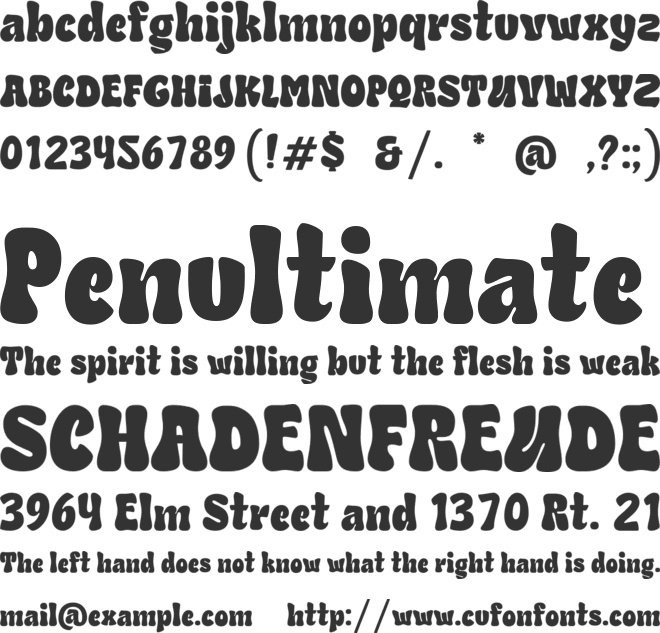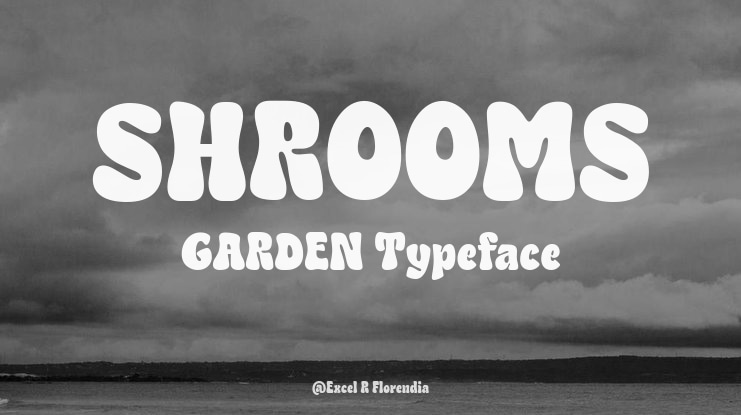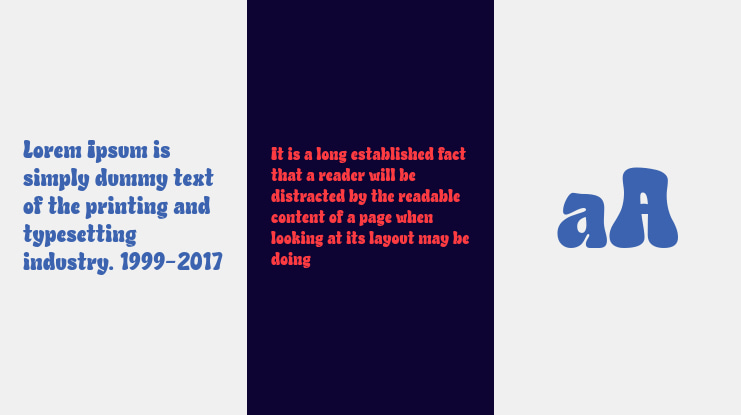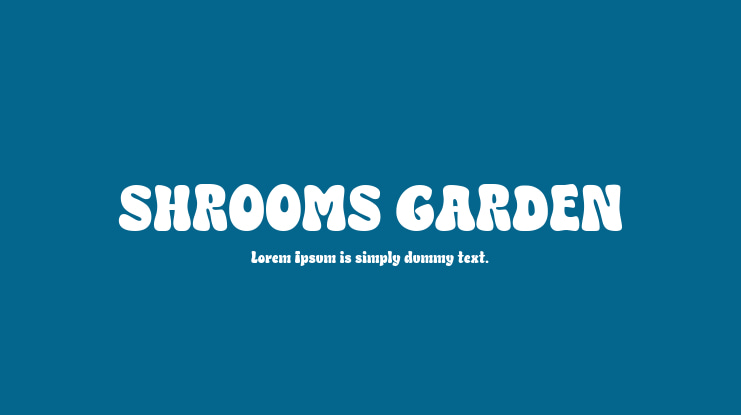
SHROOMS GARDEN Font
Excel R Florendia
Unleash your creative side with Shrooms Garden Retro Fonts! Take a trip down memory lane with fonts that capture the spirit of the 70s, 80s, and 90s. Are you tired of dull, uninspiring fonts that fail to grab your audience's attention? Do you yearn for designs that exude "fun" and "playfulness" reminiscent of the good old days? Look no further than our collection of retro fonts! These fonts strike the perfect balance between nostalgia and modern design, offering you a creative journey like no other.
Shrooms Garden is not your average display font. It's bold, fat, and playful, making it ideal for a wide range of design projects. Experience the enchantment of the past with fonts that are inspired by the iconic eras of the 70s, 80s, and 90s. Each character embodies the essence of those unforgettable times. From posters to websites, our fonts have the power to transform your designs from ordinary to extraordinary. Witness your creations leap off the page!